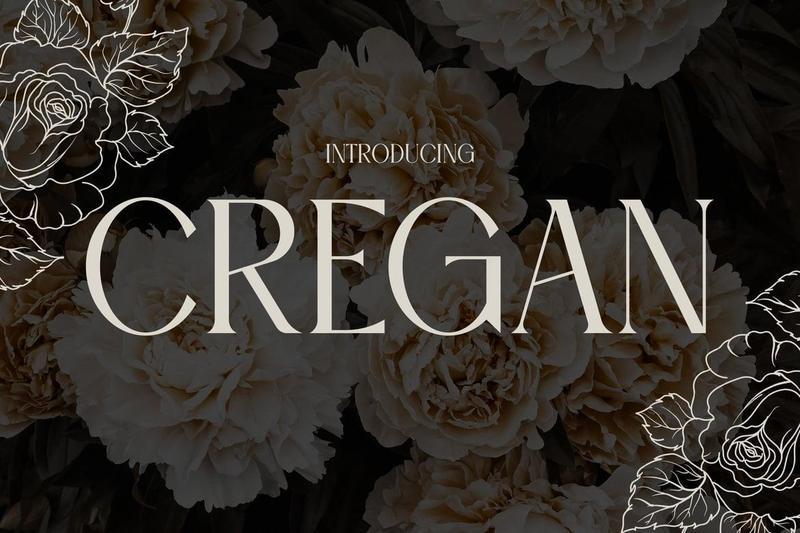
**Cregan – Editorial Display Luxury Font**
Cregan is a high-contrast editorial display serif. Vertical stems are narrow, with thin-to-thick stroke transitions across rounded forms. The family pairs condensed letter proportions with extended uppercase widths, built for headline-scale typography in branding and editorial layouts.
High-Contrast Construction Stroke modulation visible at headline sizes, suited to editorial display use.
Narrow Proportions Condensed letter widths fit more characters per line in headline and label layouts.
Display-Scale Design Intended for use at 24pt and above; not built for body text.
Cregan fits cosmetic packaging, fragrance labels, magazine cover lines, and lookbook headlines. The condensed structure works for vertical label compositions and stacked editorial layouts.
* Display use only not optimized for paragraph or body copy